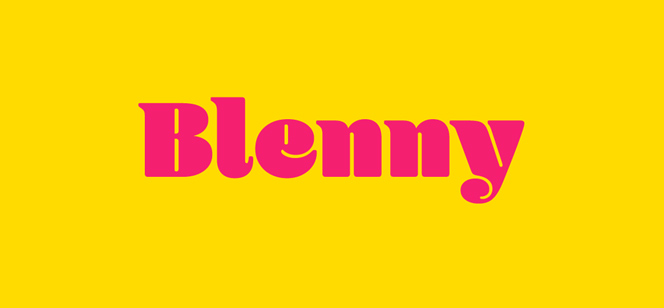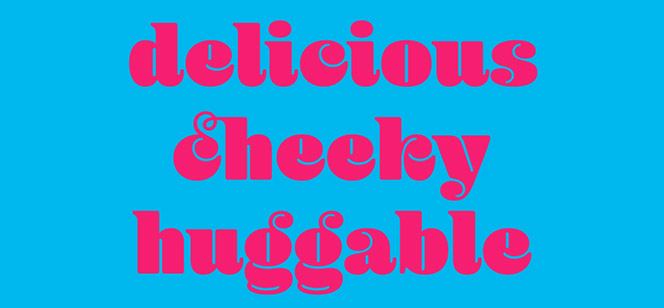
Blenny font
Blenny font by the US born type designer Spike Spondike (Dalton Maag type foundry) is an amiable friendly typeface with high contrast and very strong visual presence. Its soft curves and overexposed terminals are carrying retro but nevertheless cool spirit, perfect for branding, packaging, headlines, posters, etc. The Blenny font’s curvy and fat letter shapes have several sources of inspiration – the summer South England seaside, a trip to Bangkok, retro types on electronics equipment and gin bottles.
Blenny font contains also Thai script in addition to the Latin script system. The typeface includes a plenty of ligatures in order to provide working tight spacing for every letter combination. Individual glyphs such as the “a” seem to wrap around themselves in a hug, and the “e” looks like smiley, creating something that’s visually very pleasing and unique.
Witnesses claim that Bruno Maag, Chairman of Dalton Maag, fell in love at first sight at Blenny and exclaimed: “I’m considering having a tattoo done with it”. The new font was celebrated by the Dalton Maag studio with the increasingly popular Blenny gin cocktail. Just like the font it’s named after, a Blenny is bold, punchy and has a touch of class:
Spike Spondike is type designer from US, living in UK, with interests in music and non-Latin scripts.